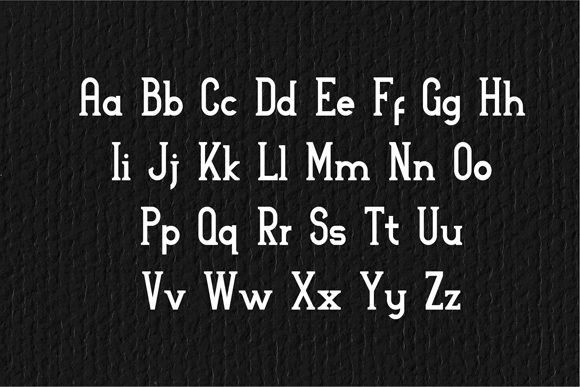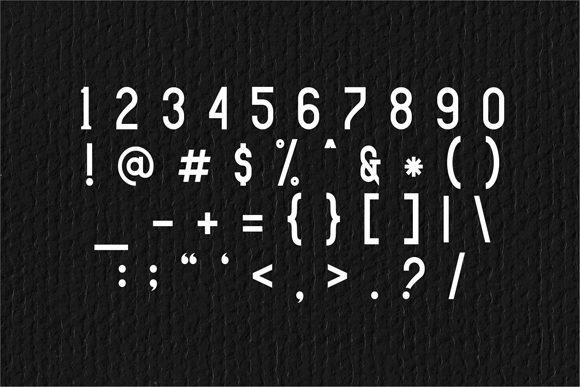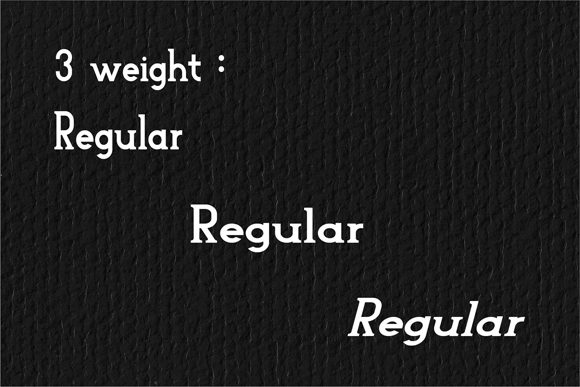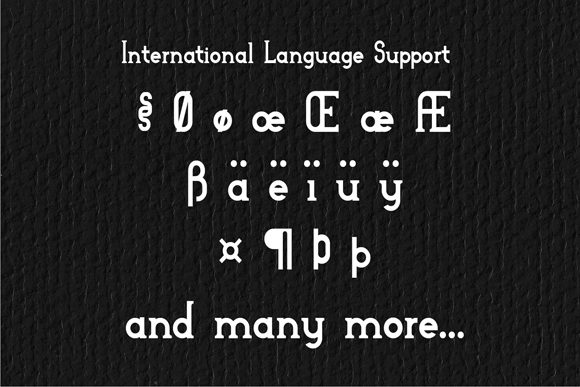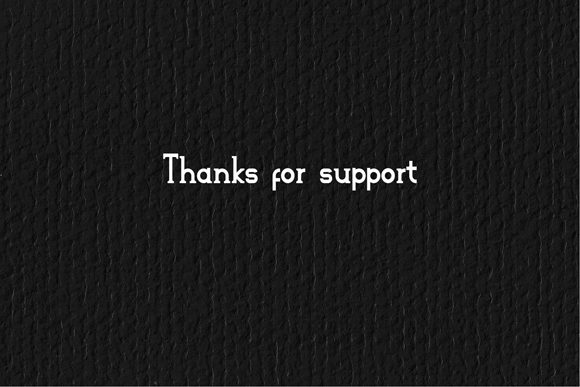
The Designer’s Delight: Arteria Font
I’ll never forget the time I was working on a project for a trendy boutique client, and I just couldn’t find the right font to match their brand’s personality. The client wanted something modern, yet elegant, with a touch of playfulness. I scoured the internet, tried out countless fonts, but nothing seemed quite right. That was until I stumbled upon Arteria Font. ✨
What I Love About Arteria Font
- ✅ Unique Serif Style: Arteria’s beautifully rounded serifs add a smart touch to any design project.
- ✅ Modern Feel: This font screams modernity, making it perfect for designs that require a fresh look.
- ✅ Versatility: From branding to packaging, and even web design, Arteria Font fits right in.
- ✅ Easy on the Eyes: The rounded feel makes it highly readable, even at smaller font sizes.
While Arteria Font is amazing, it’s not without its quirks. ⚠️
- 🤔 Limited Use in Formal Contexts: Due to its playful nature, Arteria might not be the best fit for very formal or traditional designs.
- 🤔 Glyph Support: Some users have reported limited support for non-English characters, which could be a drawback for global projects.
Arteria Font was designed with the modern creative in mind. Its creator aimed to craft a font that combines elegance with a playful edge. Inspired by contemporary design trends and a passion for typography, Arteria Font brings a fresh perspective to the world of serif fonts.
Q: Is Arteria Font suitable for body text?
A: Absolutely! Arteria Font’s rounded feel and clear letterforms make it highly readable, even for longer blocks of text.
Q: Does Arteria Font support OpenType features?
A: Yes, Arteria Font comes with OpenType features, including stylistic alternates and glyphs, allowing for more creative flexibility in your designs.
Q: Is Arteria Font available in different weights?
A: Yes, Arteria Font comes in multiple weights, making it versatile for various design applications, from headings to body text.